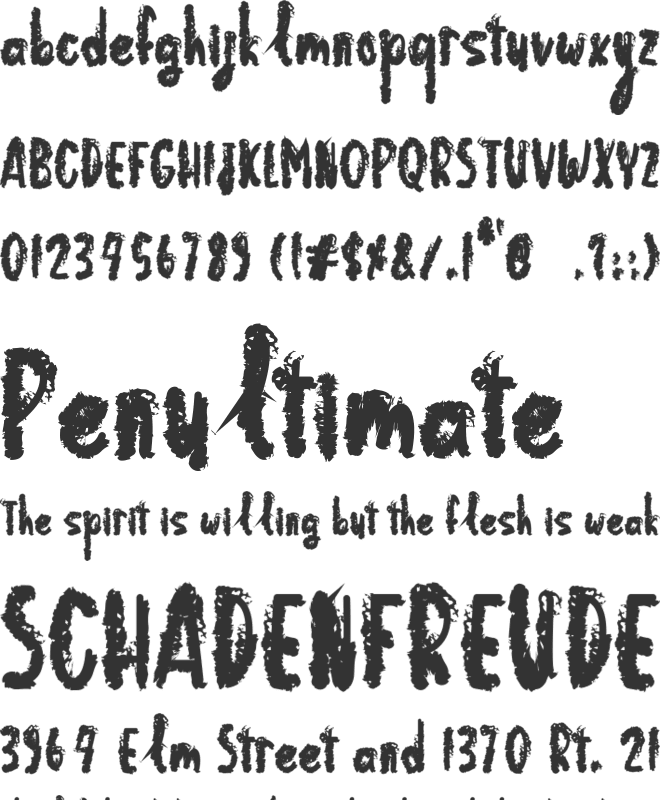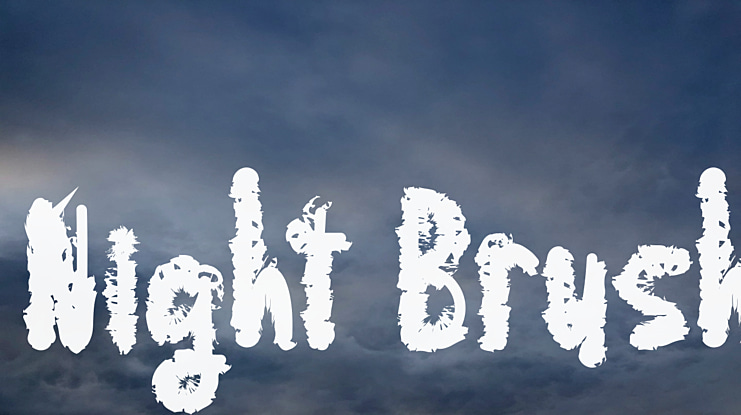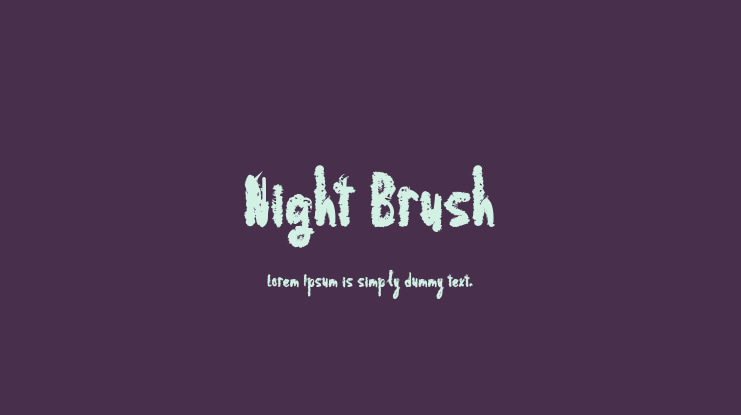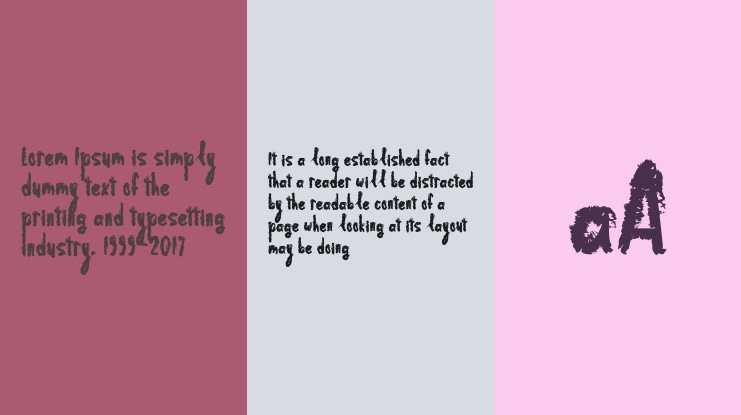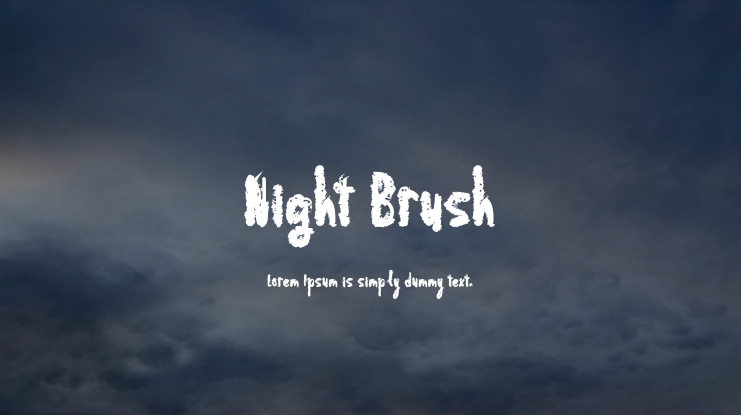
Night Brush Font
Night Brush is a cool and modern brush display font. Whatever the topic, this font will be a wonderful asset to your font library, as it has the potential to enhance any creation.https://www.creativefabrica.com/product/night-brush/ref/245145/